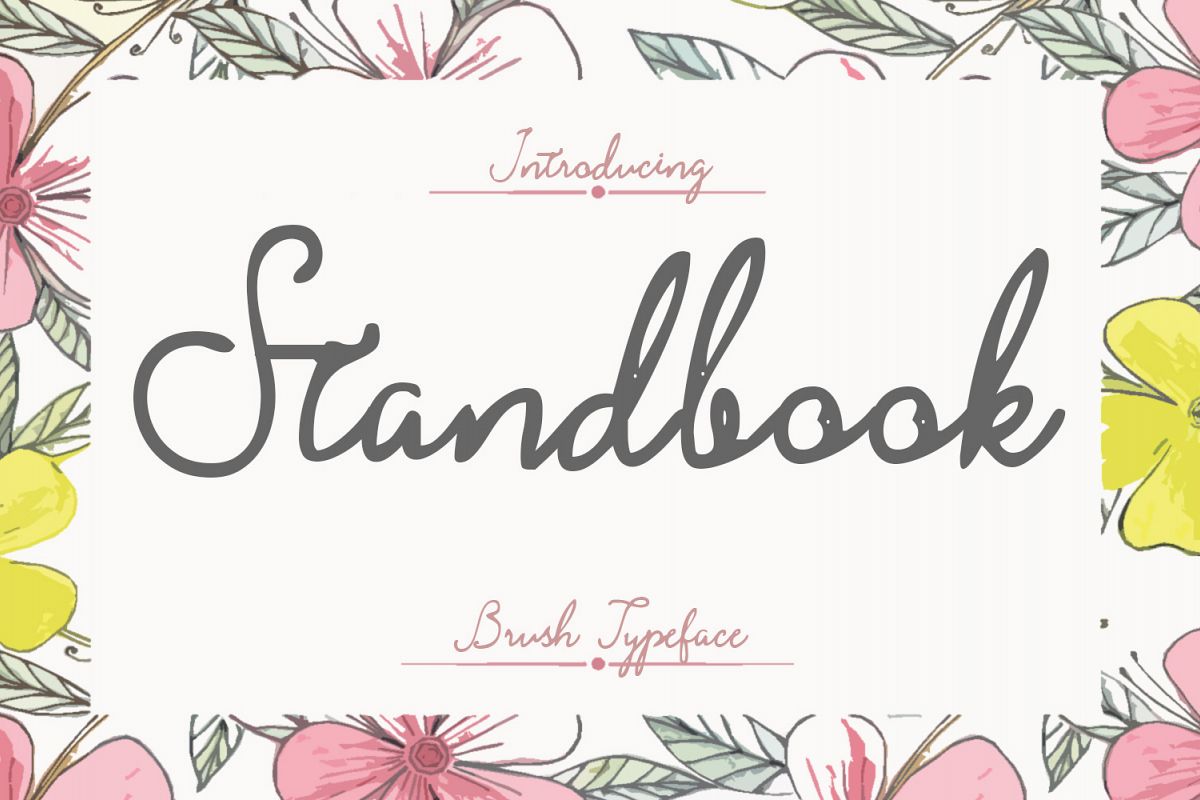
Standbook
StandBook is Perfectly to make your text stand out so perfect for logos, quotes printed, invitations, business cards, product packaging, headers and others.